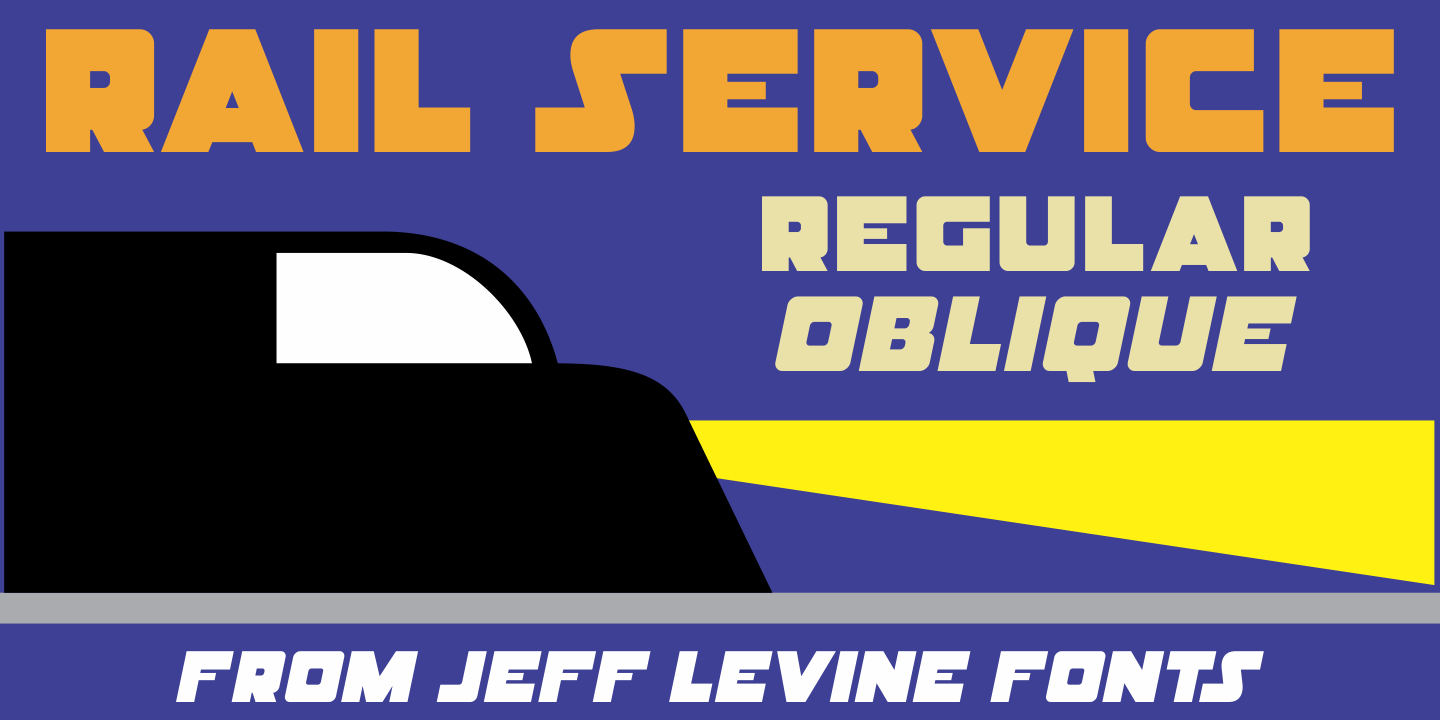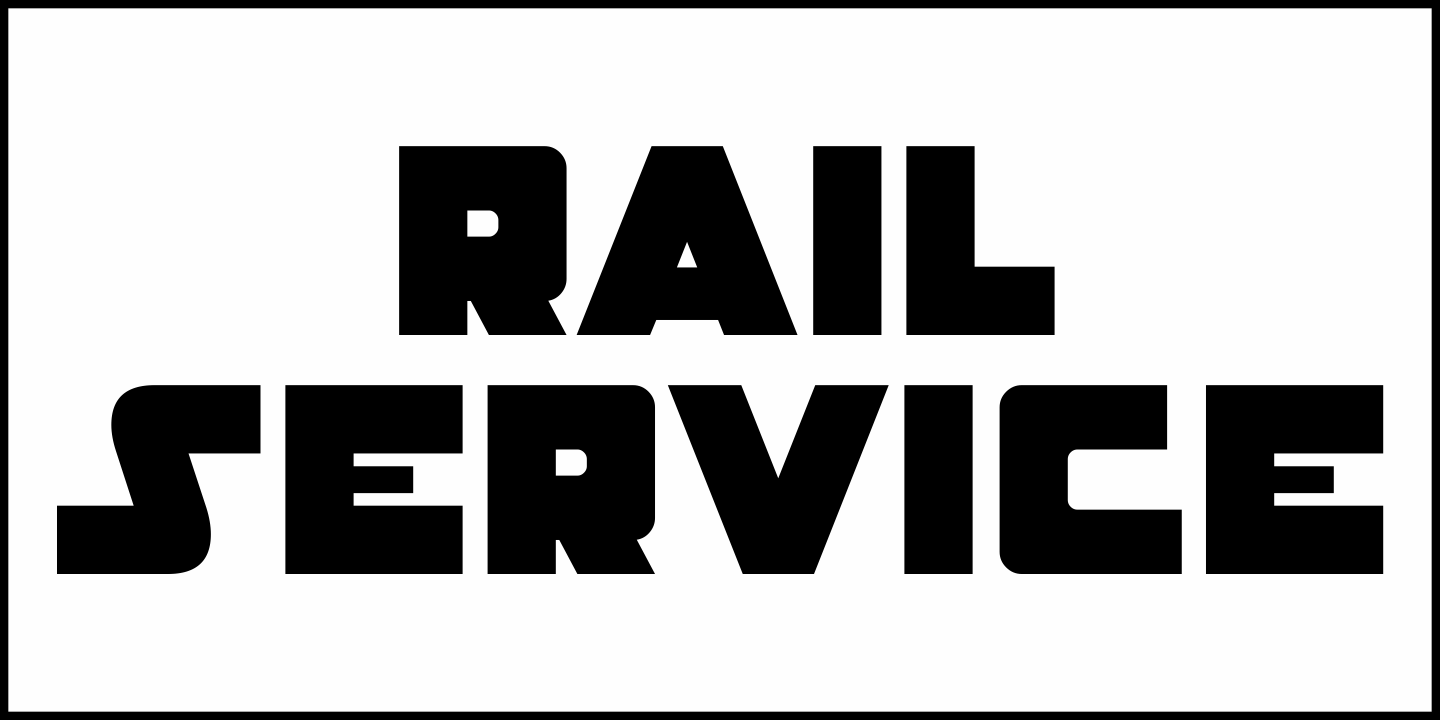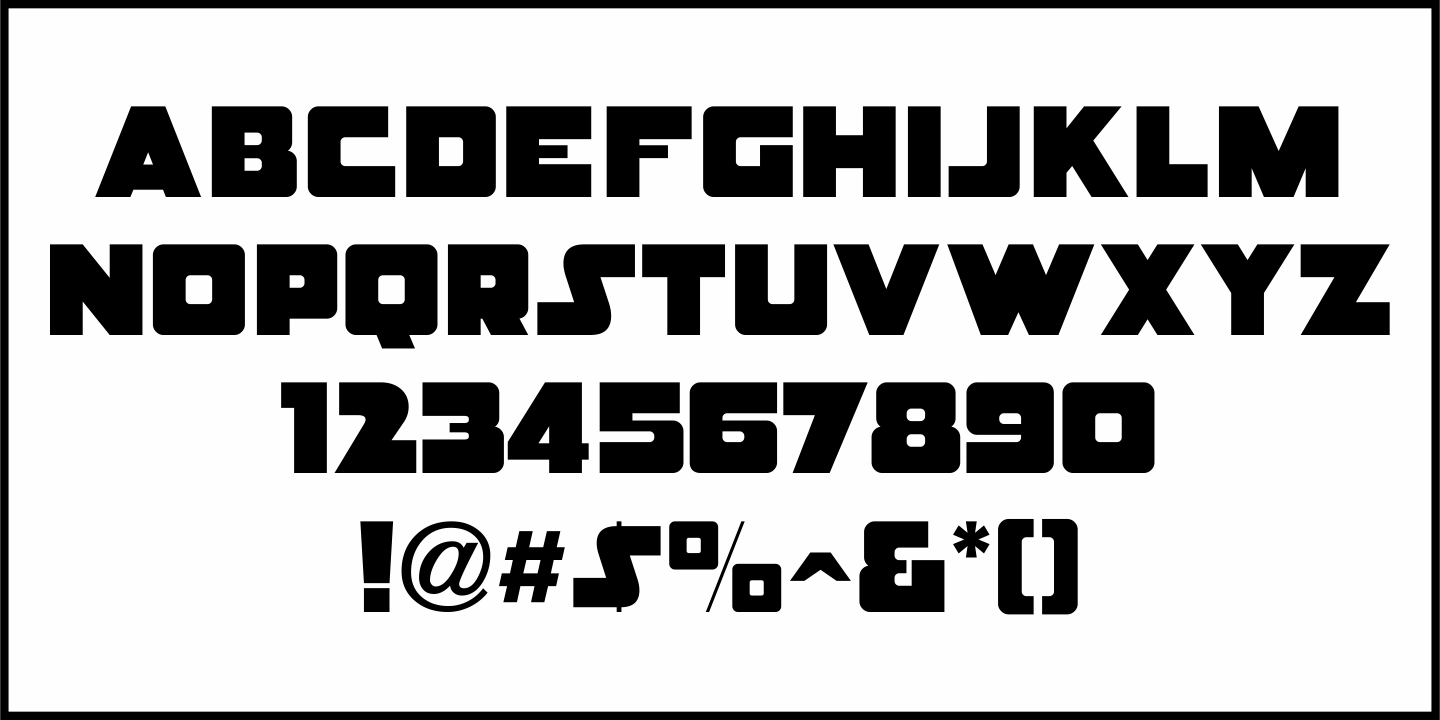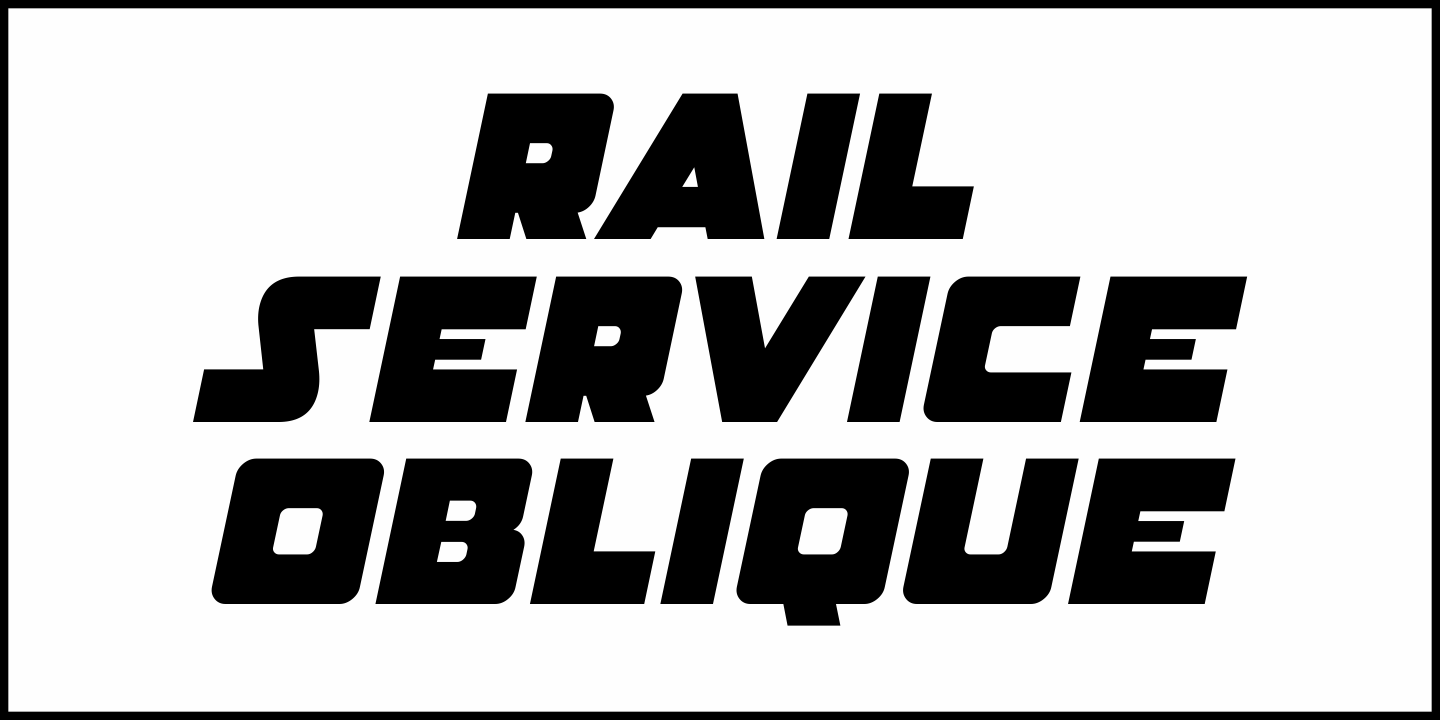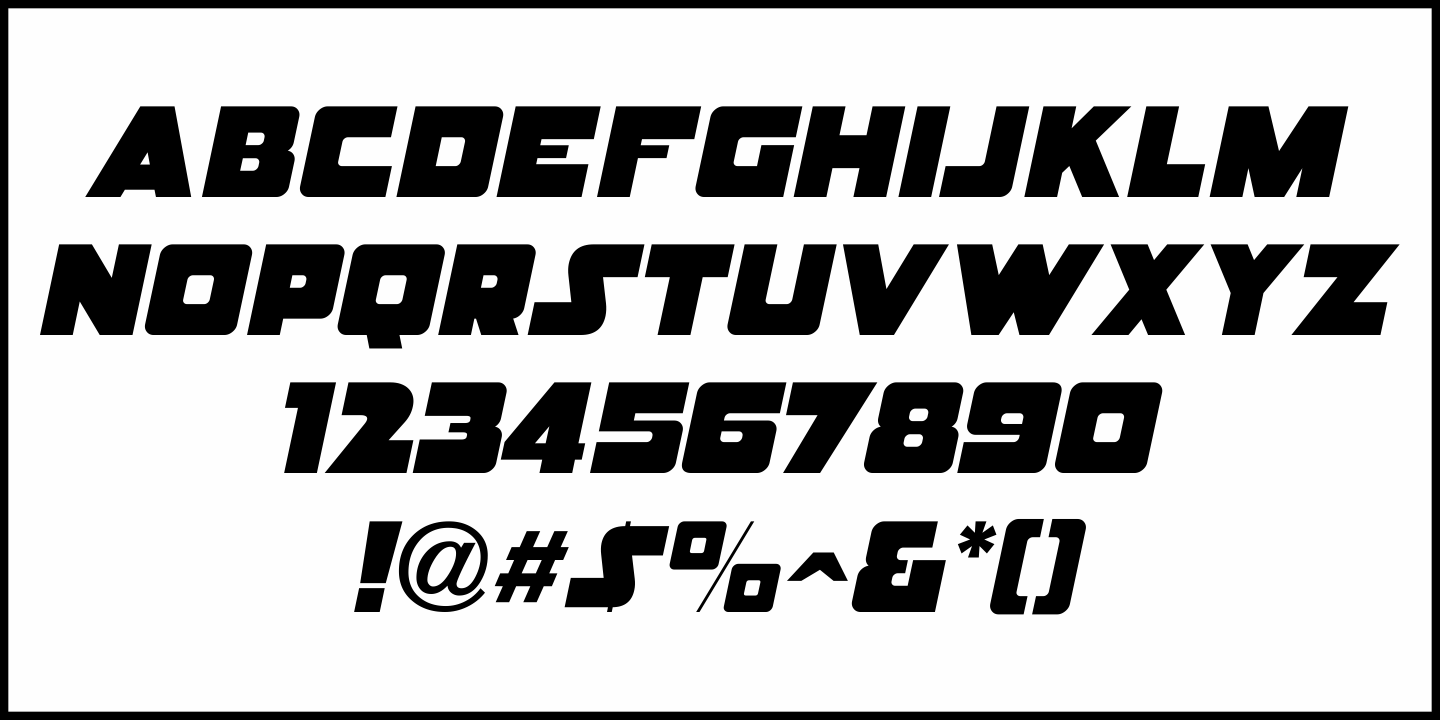
Rail Service
The extra bold, squared Art Deco sans hand lettering found on a 1940s travel poster for the Pennsylvania Railroad inspired Rail Service JNL, which is available in both regular and oblique versions.